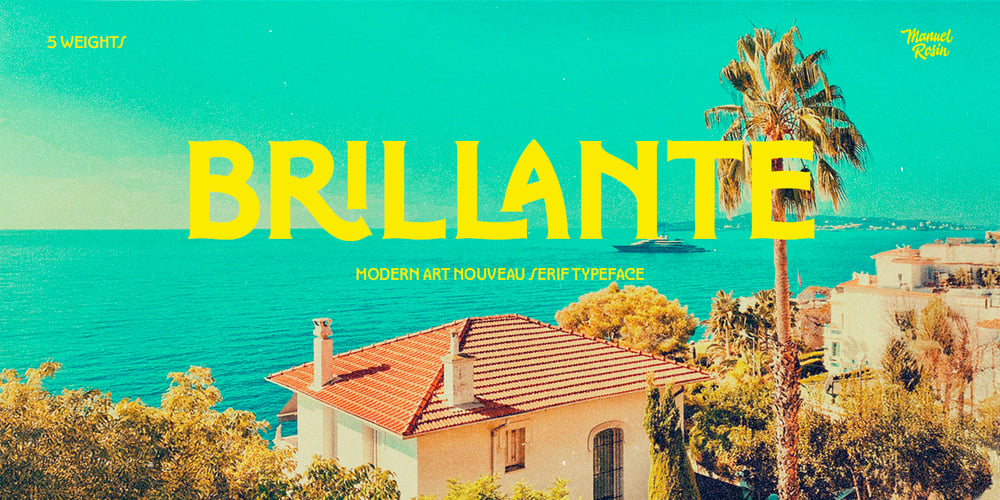
Brillante
Brillante font
Brillante Font Family was designed by Manuel Rosin and published by Manuel Rosin. Brillante contains 5 styles and family package options. Brillante is a modern serif font that takes inspiration from old Italian Art Nouveau shop signs. Its letterforms are vintage but thin horizontal serifs, vertical letters and x-height relate it to modern typefaces. Brillante includes lots of features: a wide selection of ligatures, contextual alternates, fractions, stylistic sets and much more! This font is perfect for headings, poster, logotypes and labels.